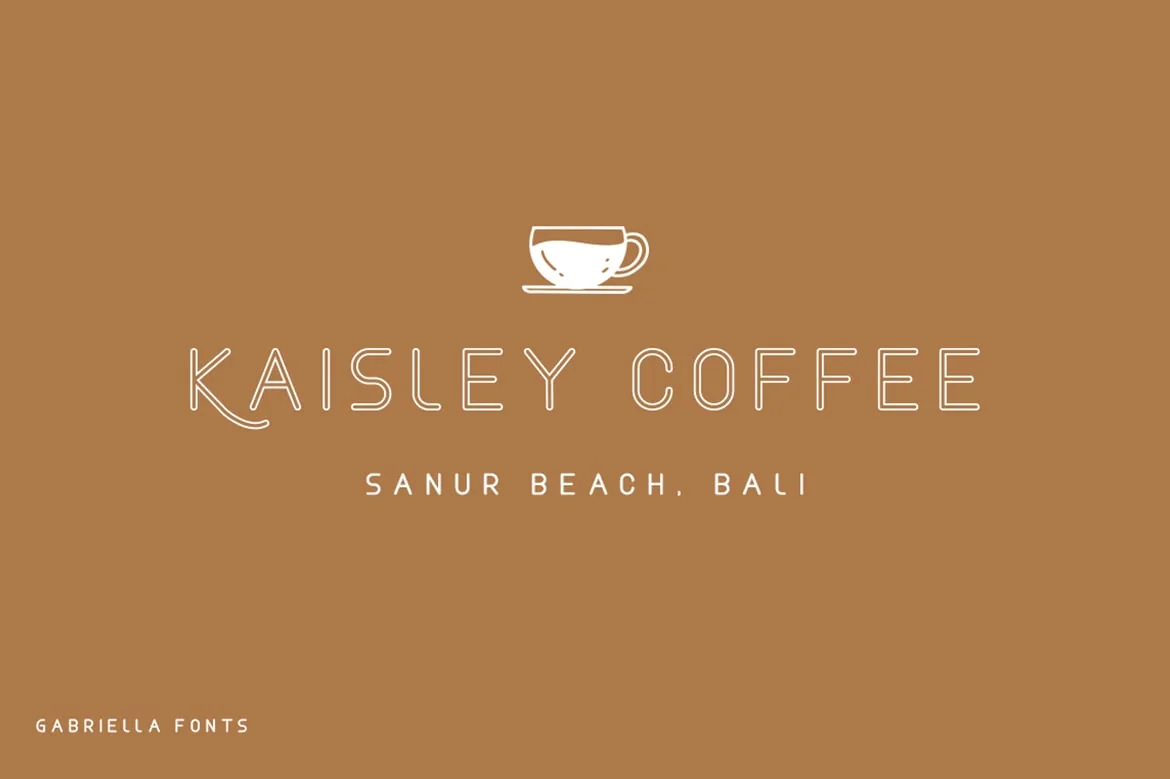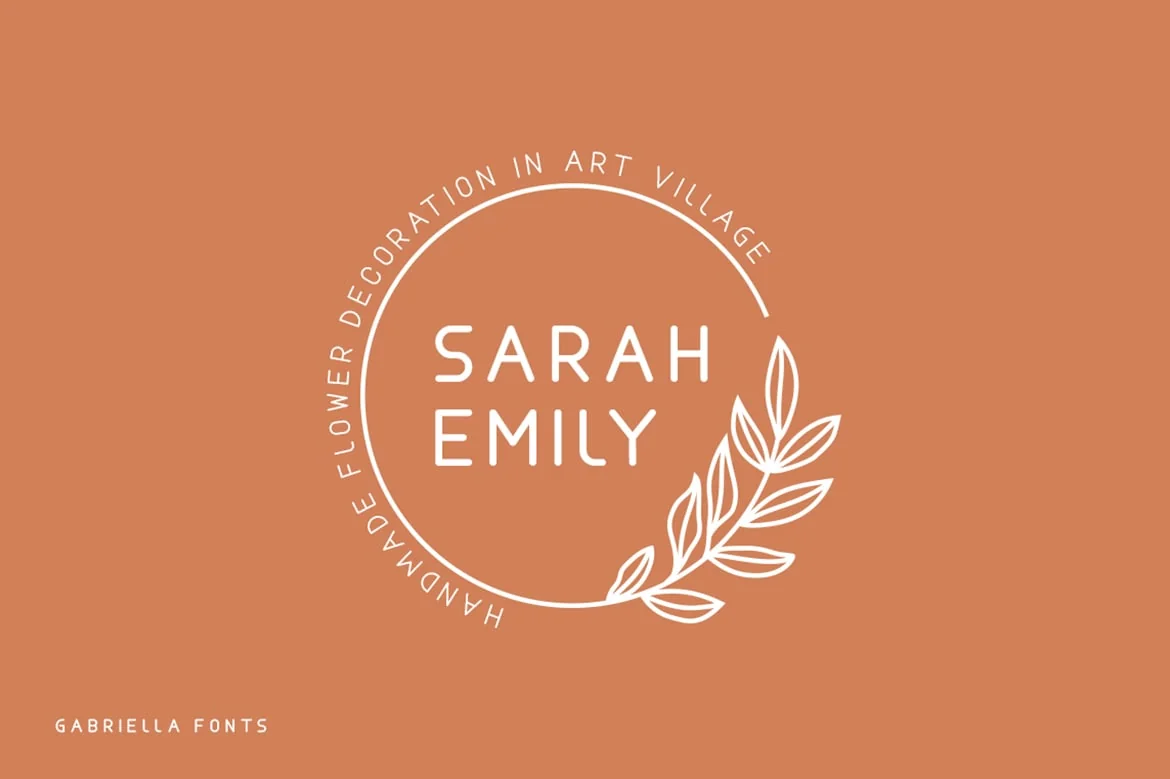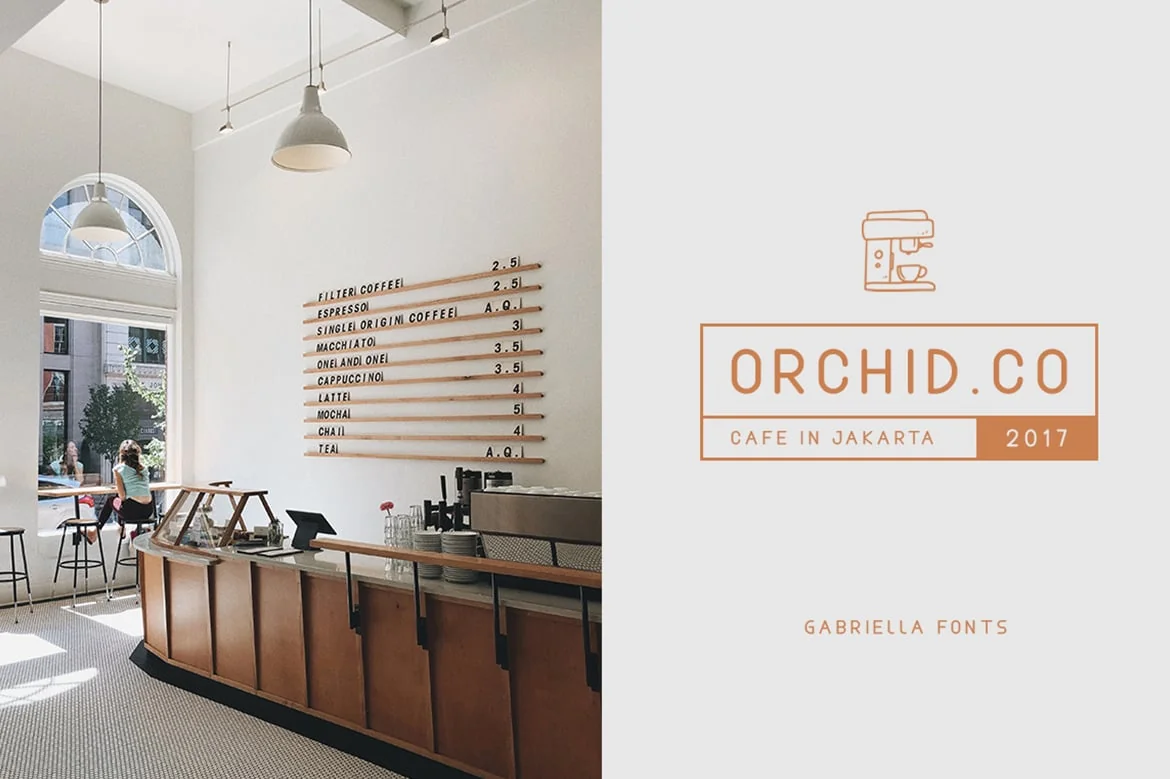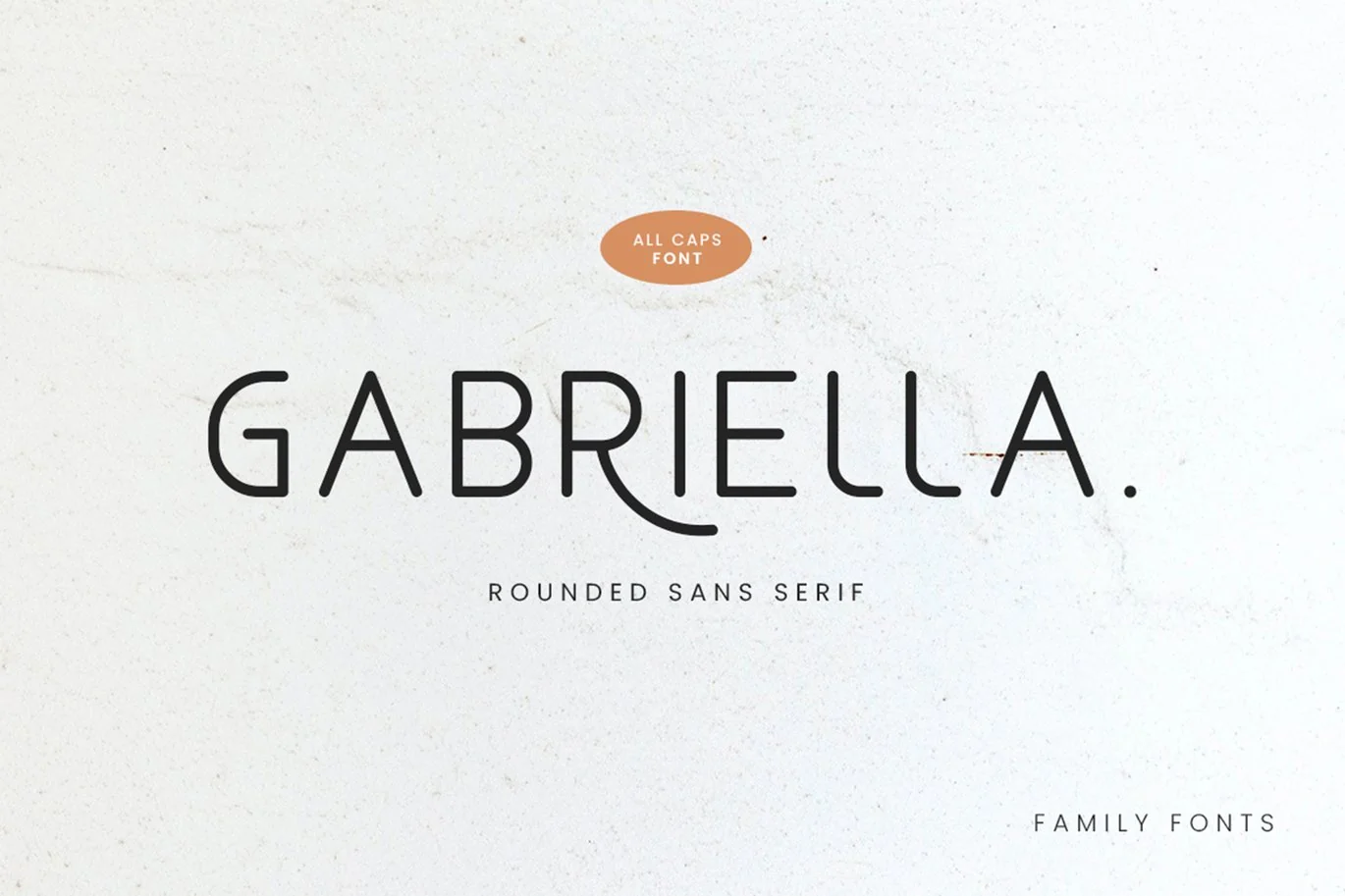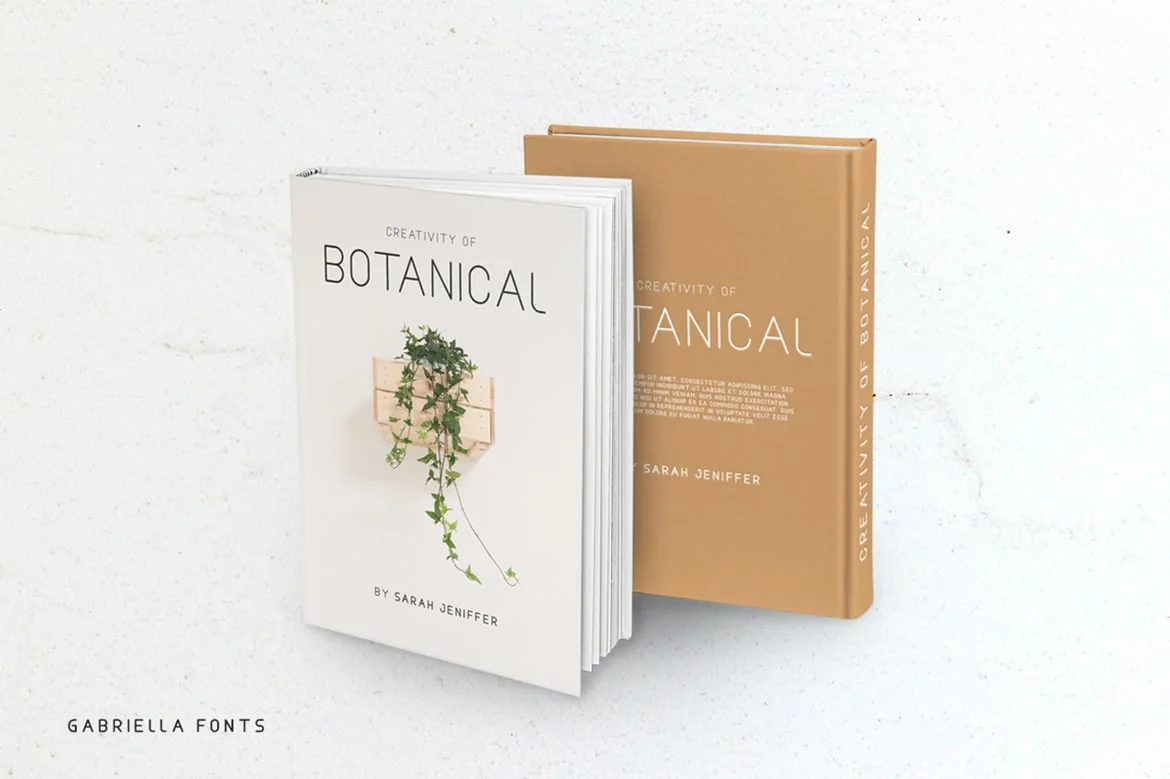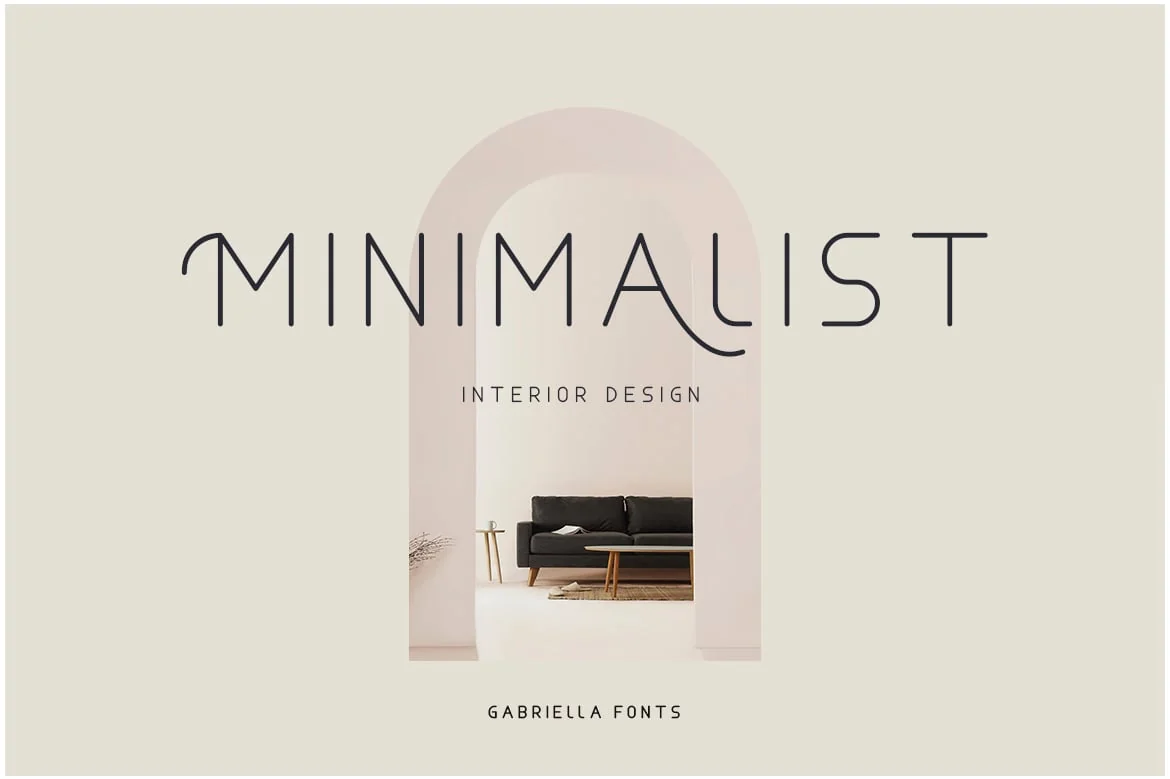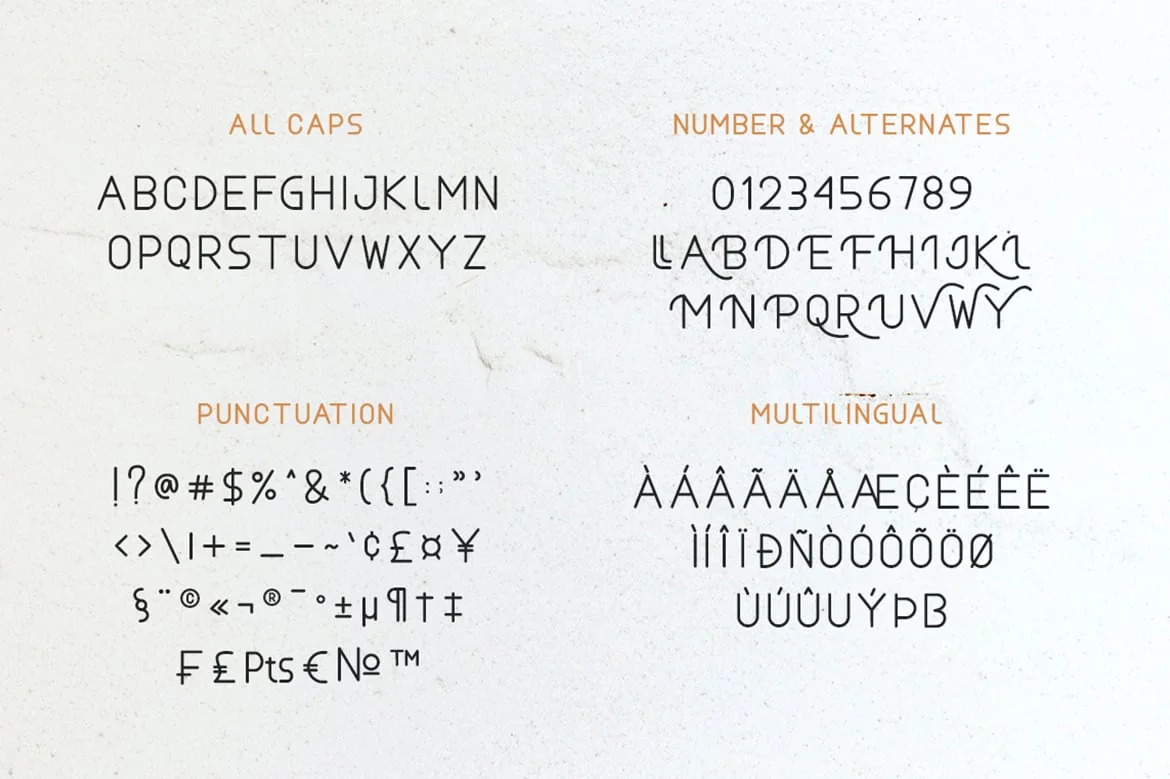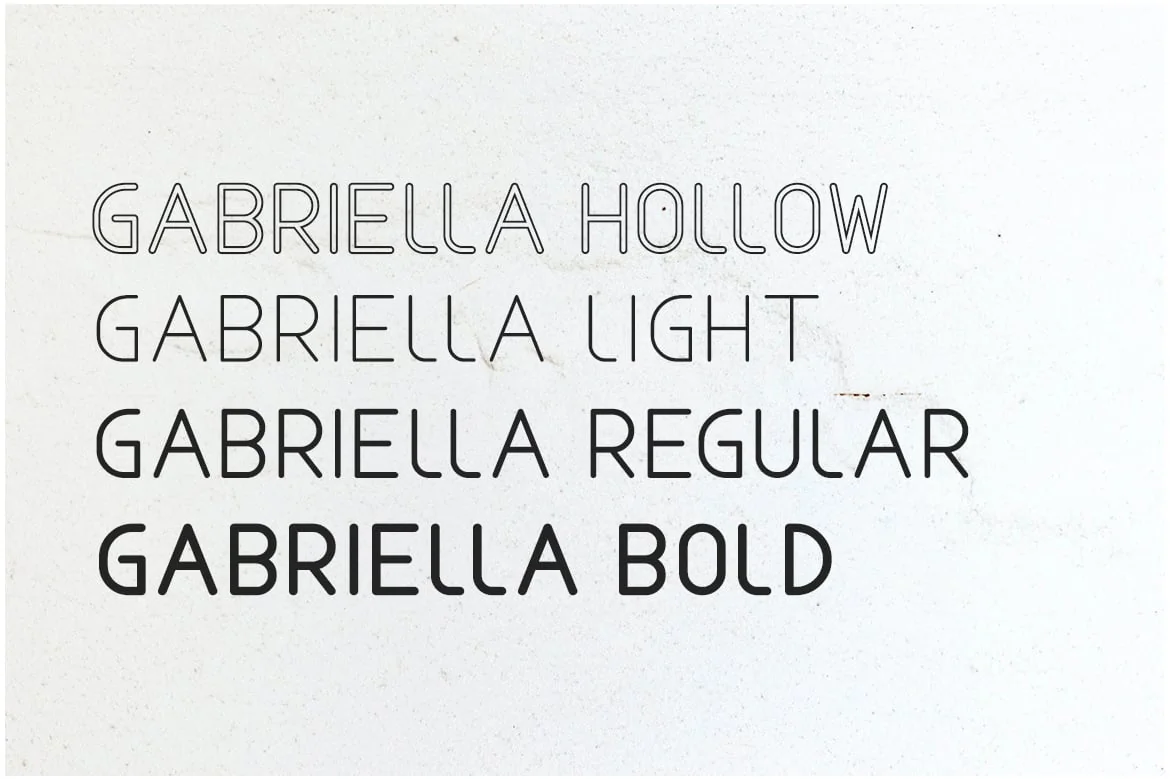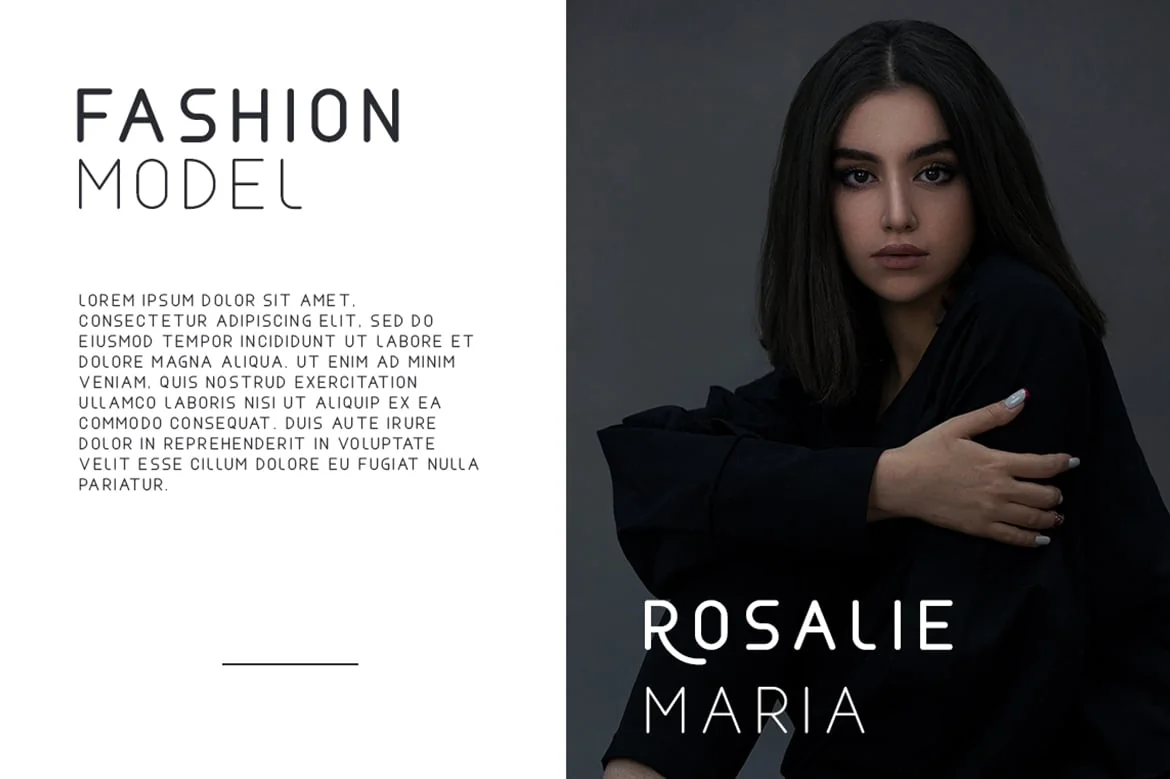
Gabriella – Elegant Font
Introducing Gabriella Sans – An elegant modern sans serif with stylistic alternates. Its clean and minimalistic works wonderfully on its own for logos, headlines, posters, packaging and many more!
Use it for your most creative projects and watch how it makes them come alive! Get inspired by its modern simplicity!
All Caps
Stylistic Alternates & Ligature
Number & Punctuation
Support Multilingual Languange